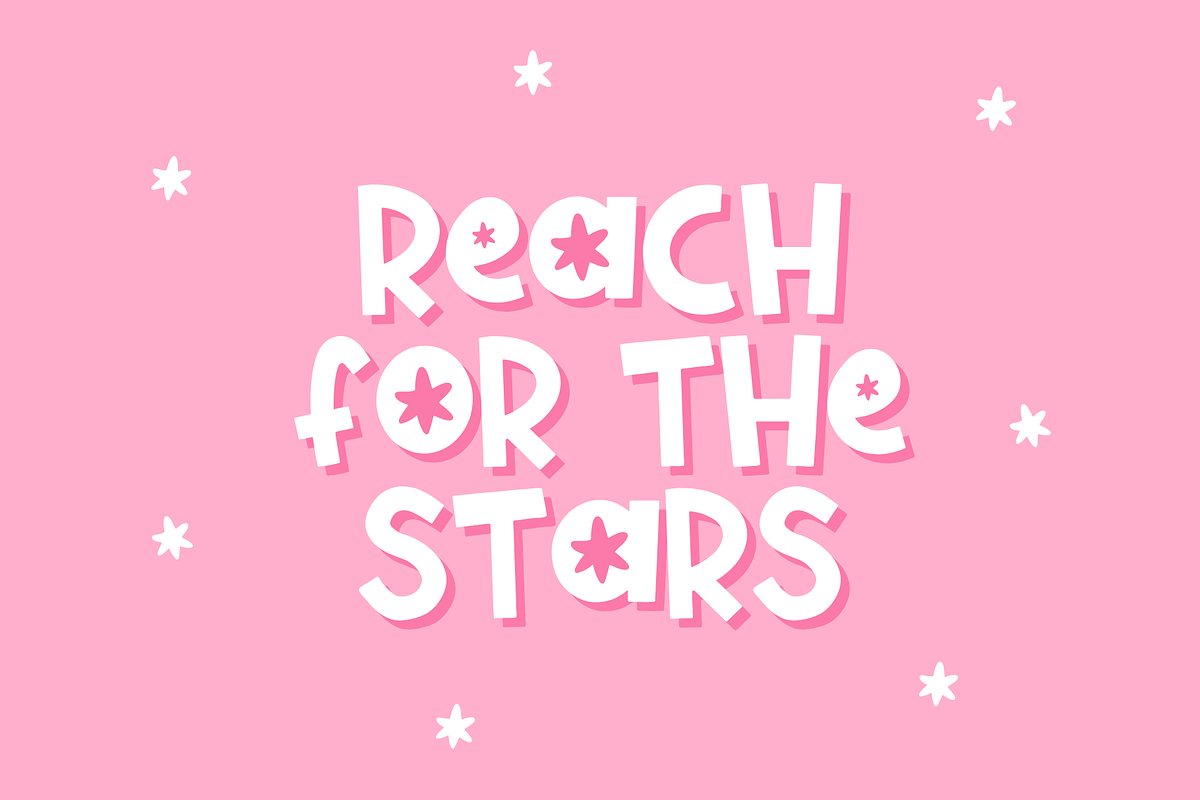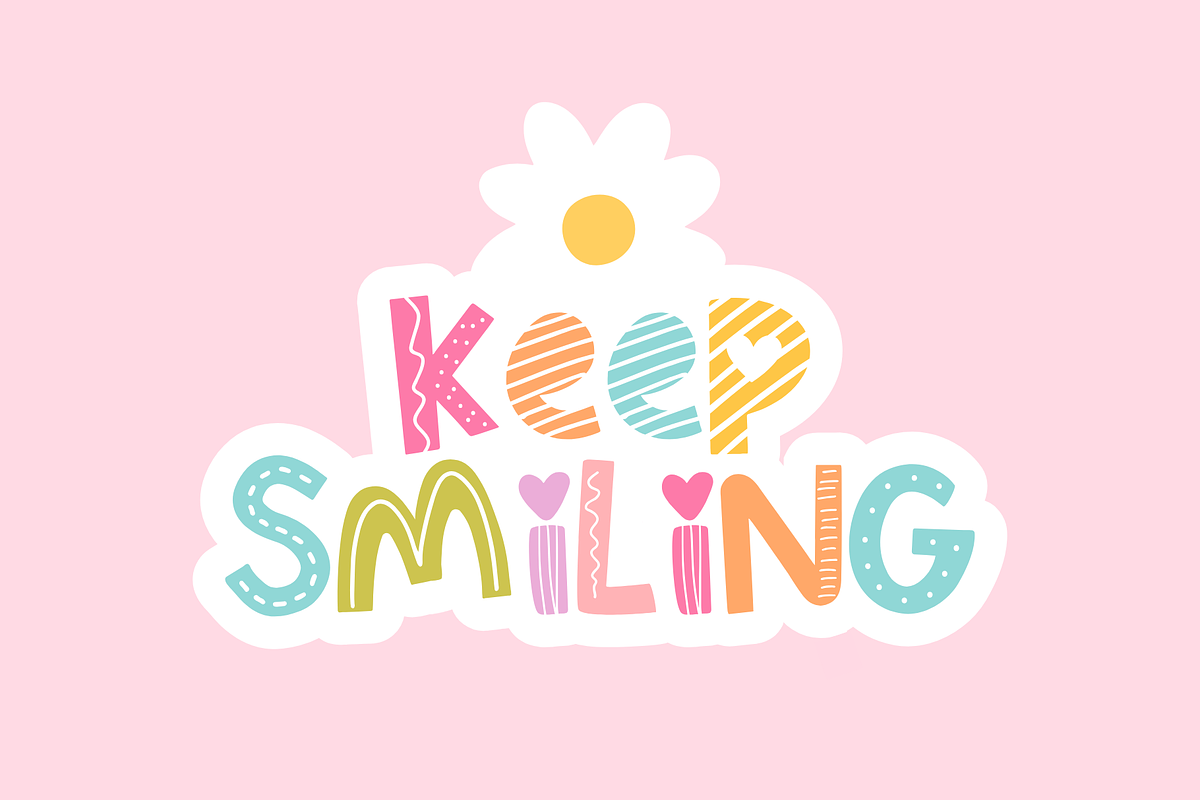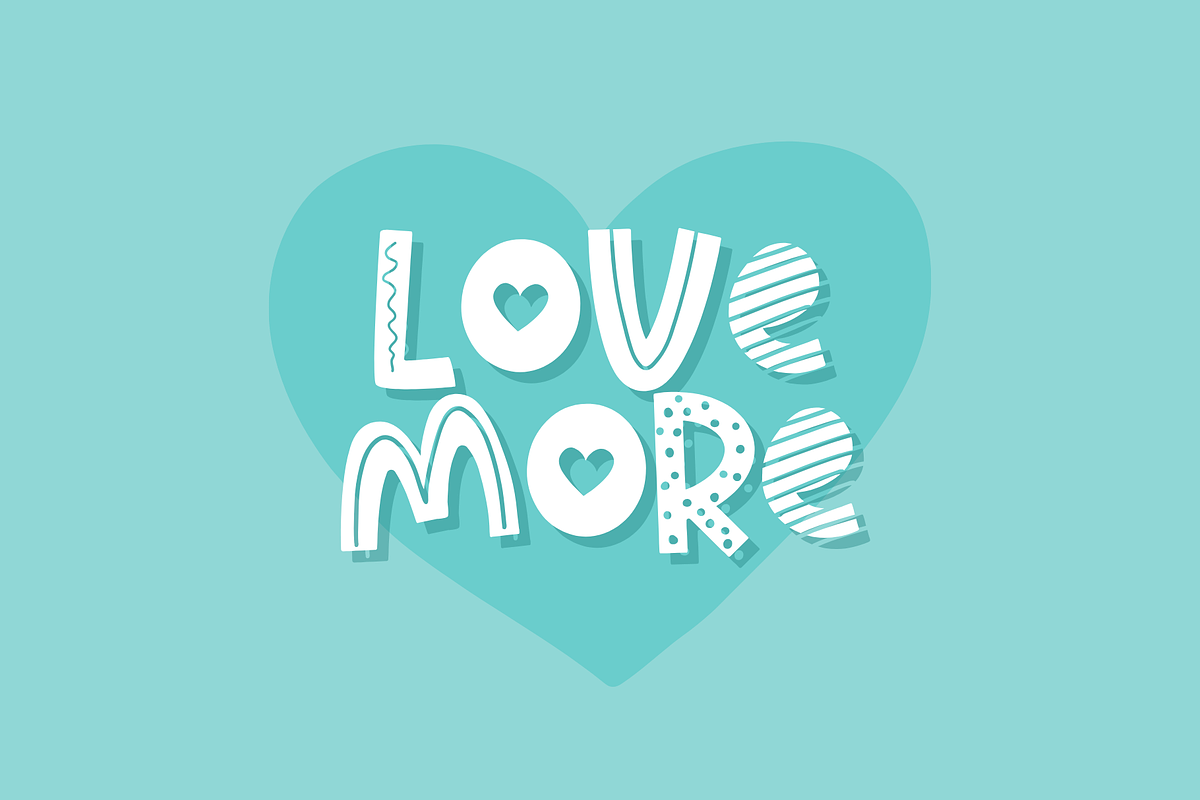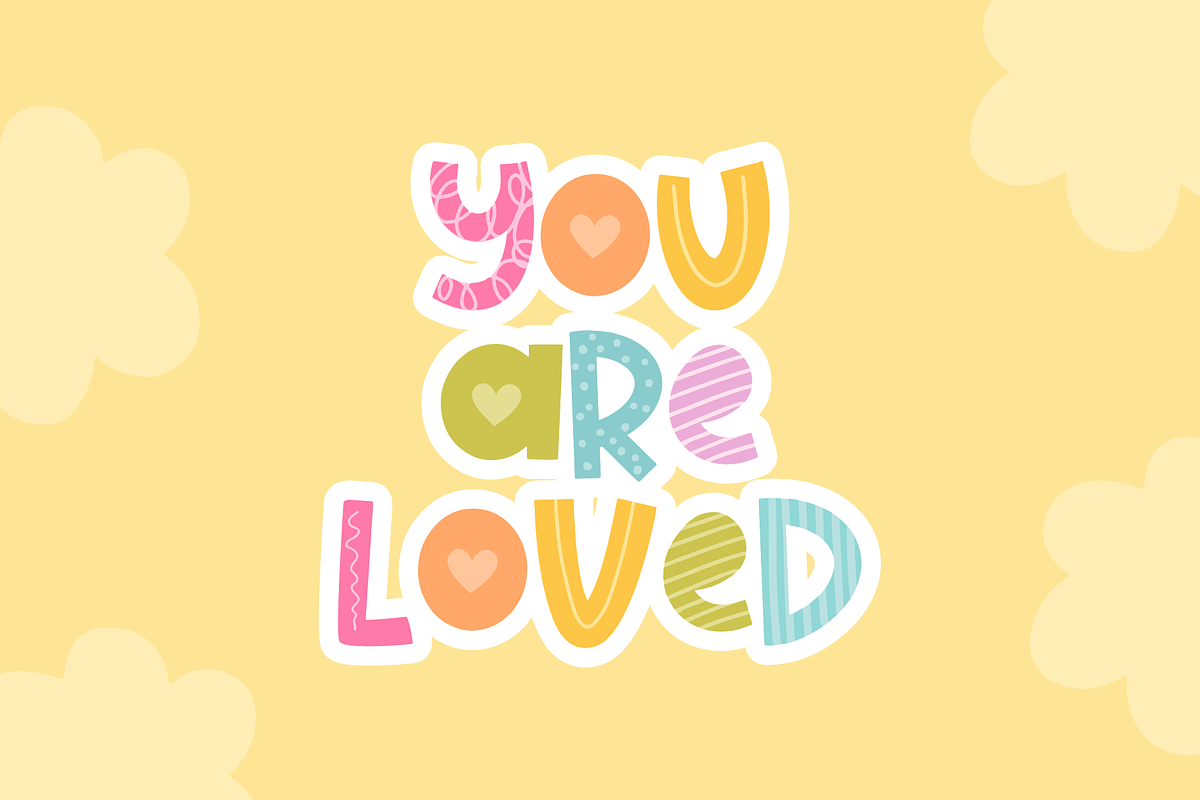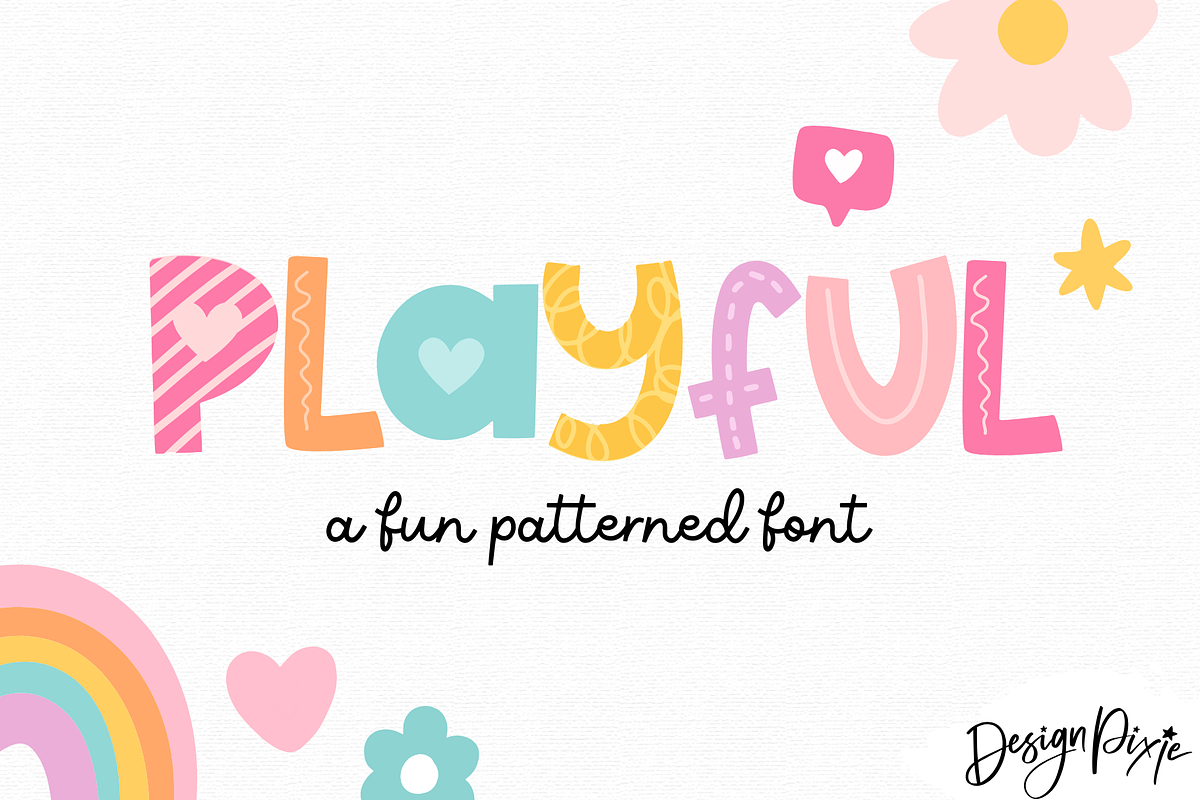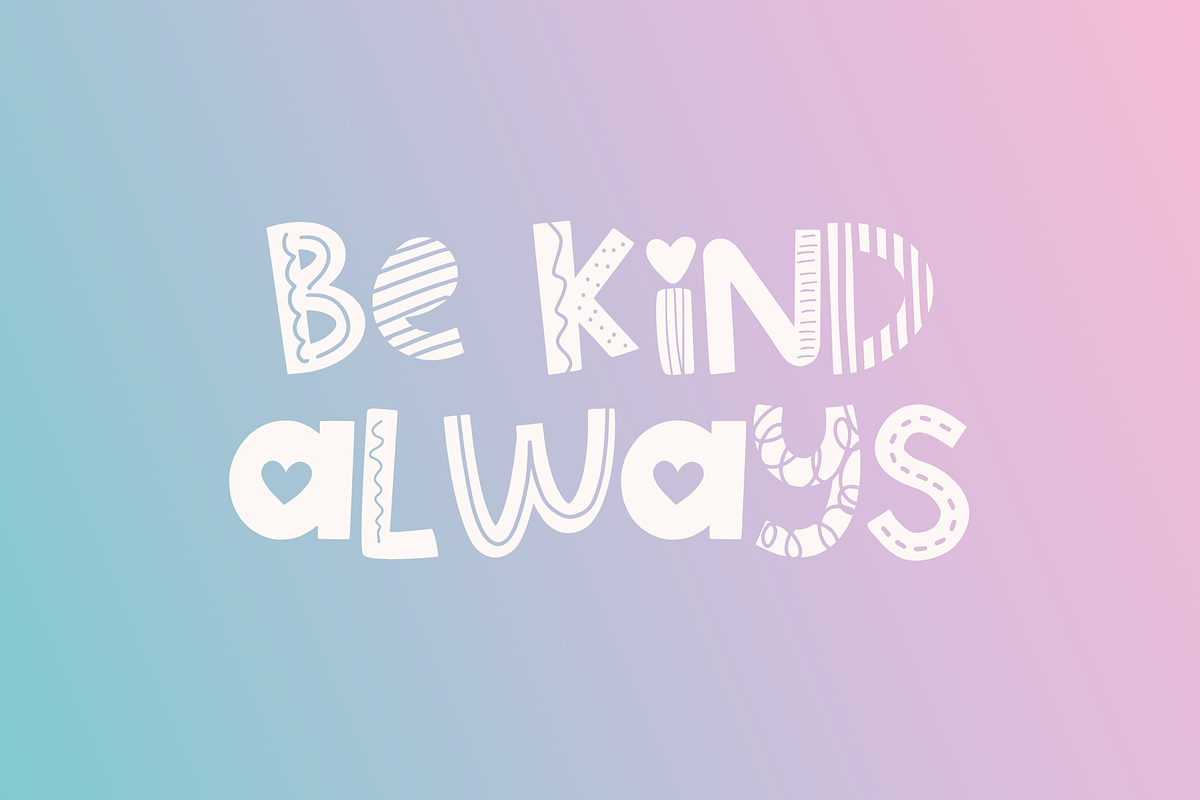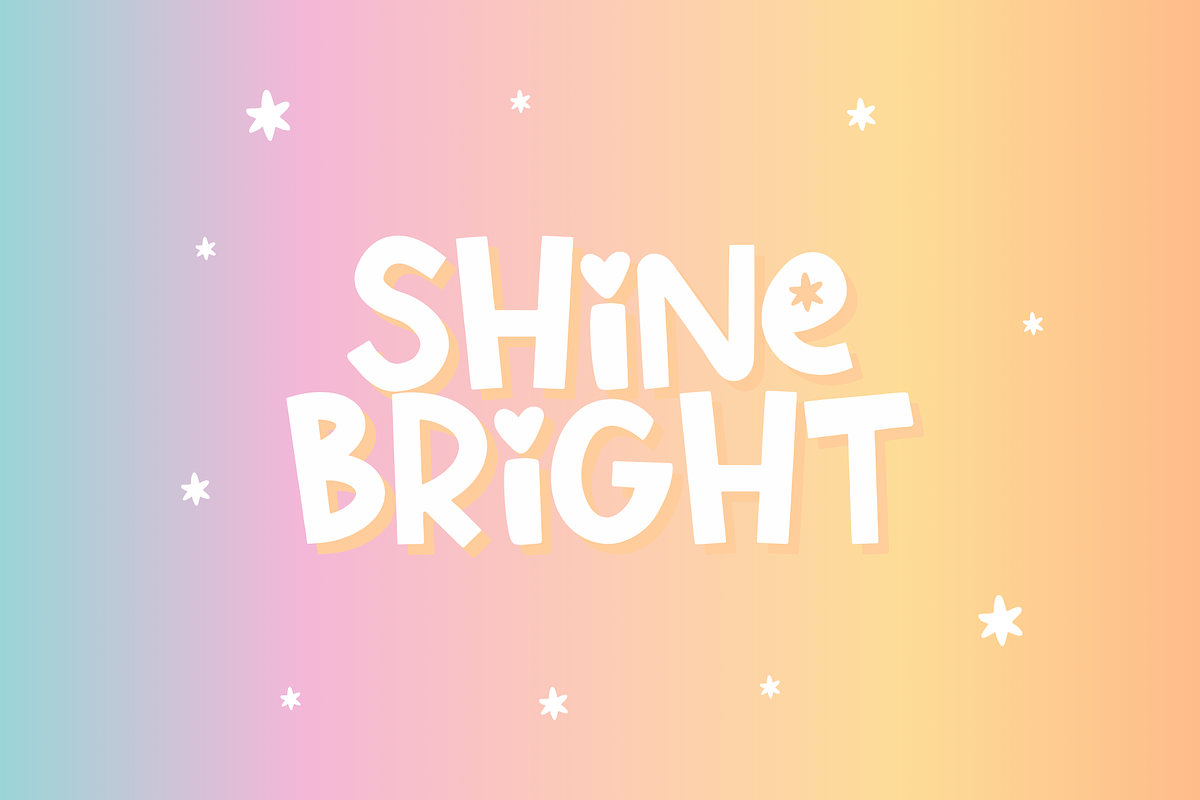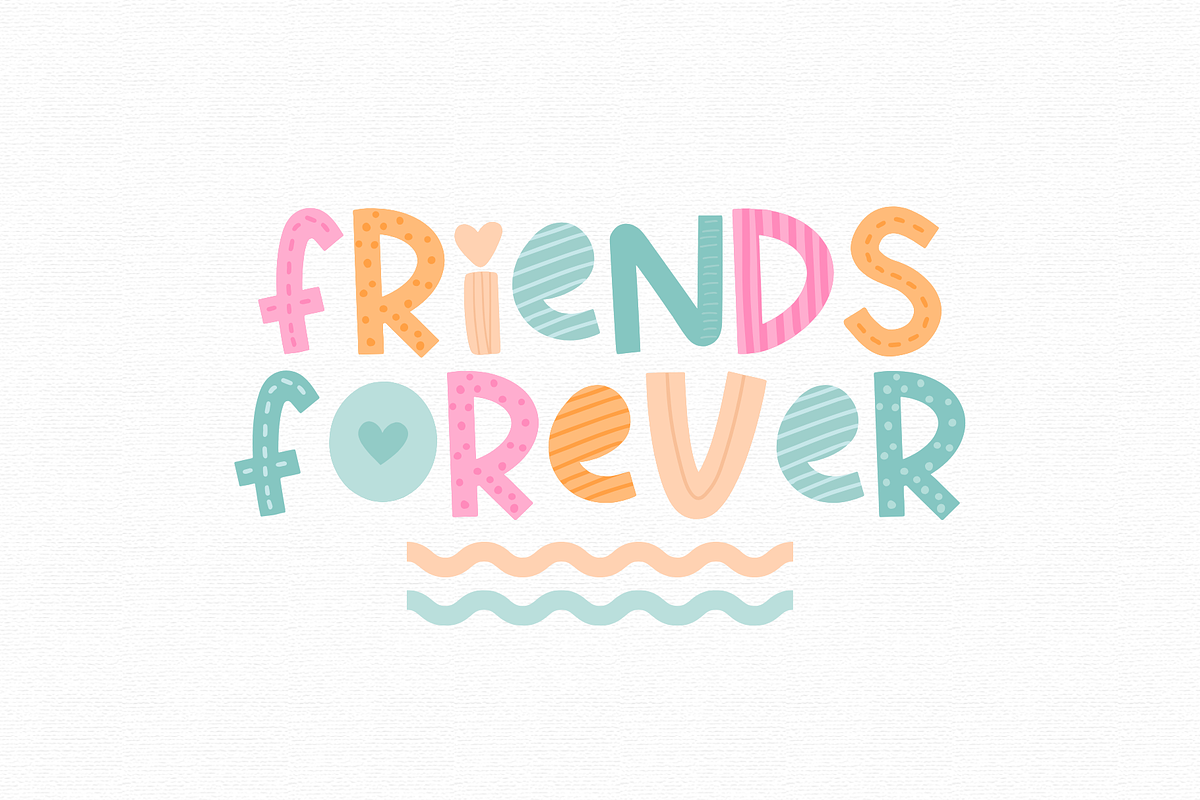
Playful Font with Fun Rainbow Patterns
Playful font is a decorative font with hearts, stripes and other patterns to create a fun effect with your type. It’s a cute display font for lettering, Procreate, iPad, Canva and more. This creative pattern font includes the lowercase character selections in bold type, and the uppercase (same style of letters) in the patterns.
Start by typing out your word in the lowercase. Then add a new layer of text on top in the uppercase to add the patterns on top. Use a rainbow color palette while typing to make the font stand out. I recommend using pale colors for the lowercase text that will sit underneath, then brighter colors for the uppercase patterned characters that will sit on top.
This patterned Playful font is the perfect choice to type in a unique style for your creative design projects.